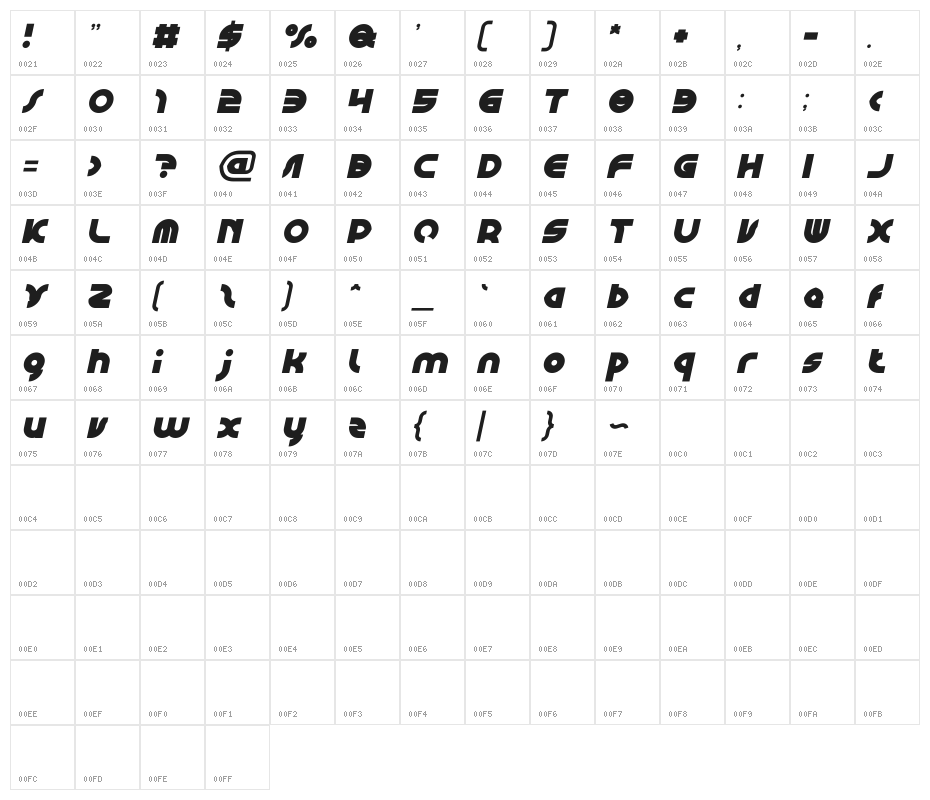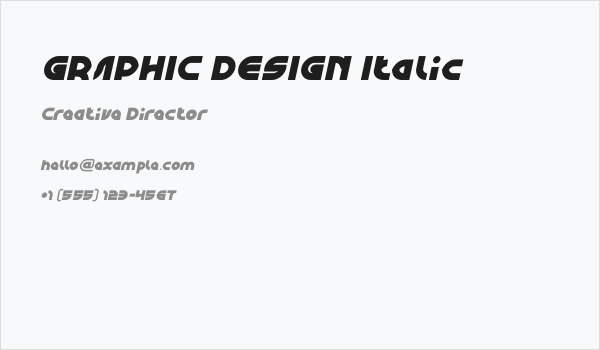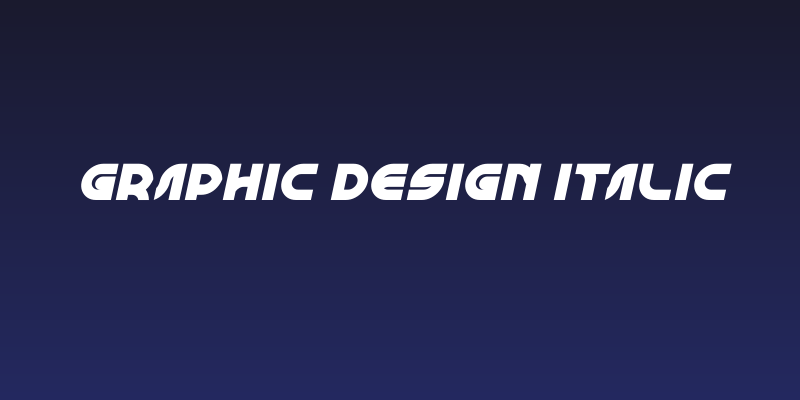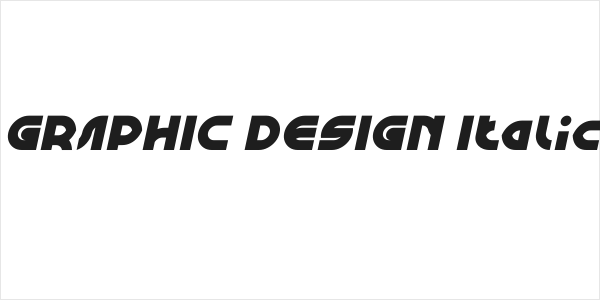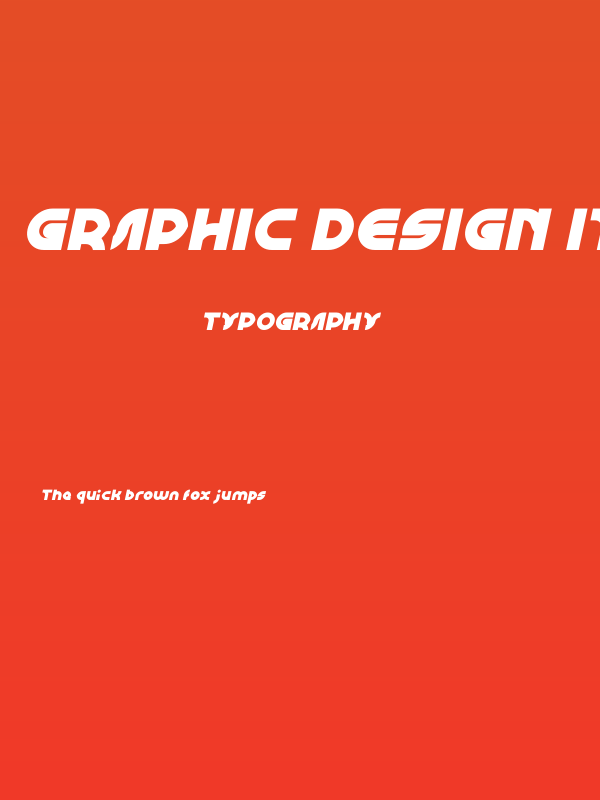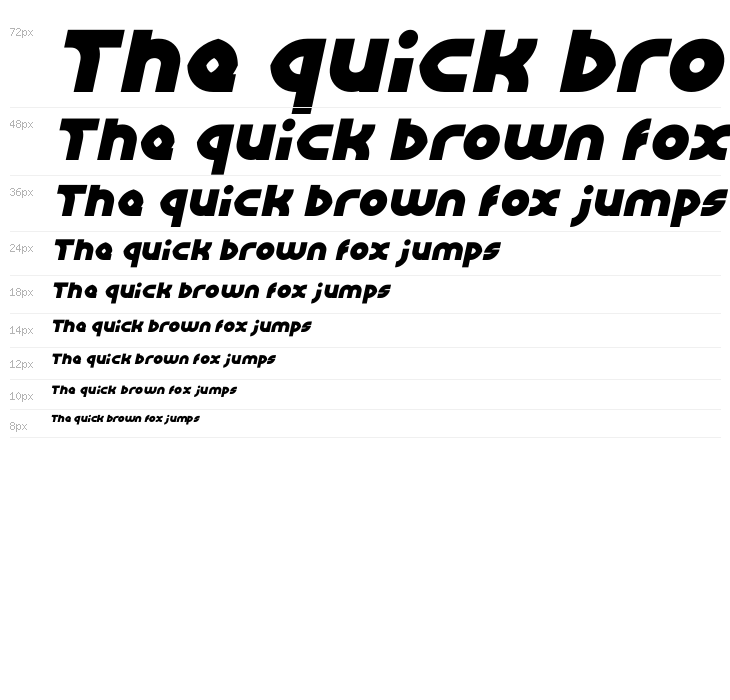
GRAPHIC DESIGN Italic Font
GRAPHIC DESIGN Italic Description
This font features a bold and dynamic design with a distinct italic slant, giving it a sense of movement and energy. The characters are thick and rounded, with a futuristic and modern aesthetic. The uppercase and lowercase letters maintain a consistent style, with smooth curves and sharp angles that create a cohesive look. The numerals and special characters follow the same bold and italicized style, ensuring uniformity across all glyphs. This font's unique appearance makes it stand out, suitable for projects that require a strong visual impact.
| Proposed Projects | Ideal for branding, posters, headlines, and any design that needs a bold, futuristic touch. |